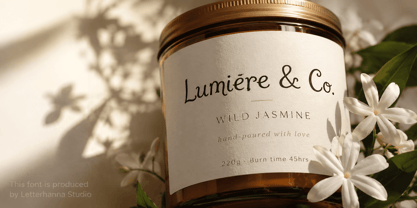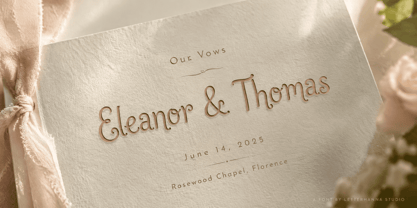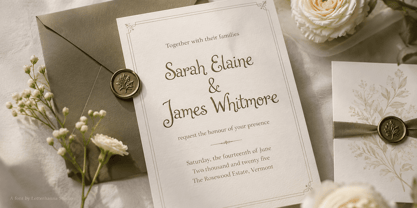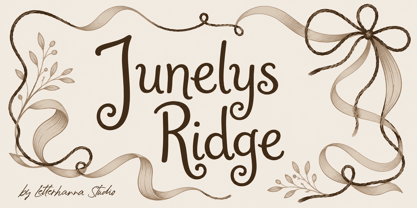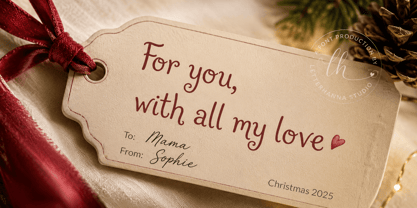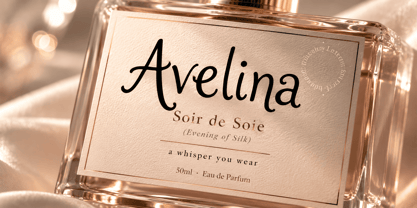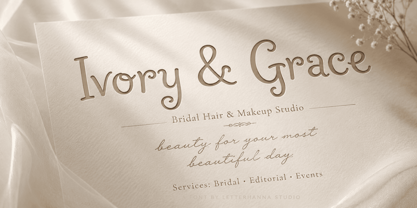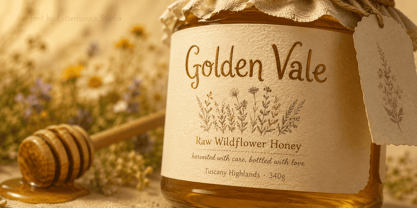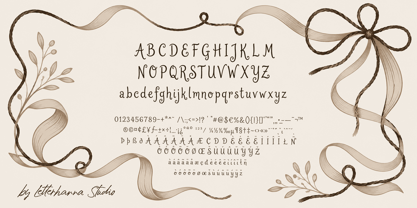
Junelys Ridge
by Letterhanna Studio
The Junelys Ridge Font Family was designed by Rinaldo Hasibuan and published by Letterhanna Studio. Junelys Ridge contains 1 styles. More about this family
You've spent hours on the details — the florals, the color palette, the mood. But there's one element that ties every piece of design together before the client even reads a single word: the font.
That's exactly why we created Junelys Ridge — a script font that moves like ink on paper, swirls like a signature, and whispers elegance in every curve.
"Not every script font earns its place on a wedding invitation. Junelys Ridge does."
With its flowing strokes, graceful spiral swashes, and perfectly balanced letterforms, Junelys Ridge was built for designers who create work that means something — wedding suites, branding for boutiques, luxury packaging, invitations that people keep.
It pairs beautifully with clean serif or minimalist sans-serif fonts, and it scales from delicate social media graphics to large-format prints without losing its charm.
Designed at Letterhanna Studio in Yogyakarta, Indonesia — where every letterform is shaped with intention and every curve is tested across real design contexts.